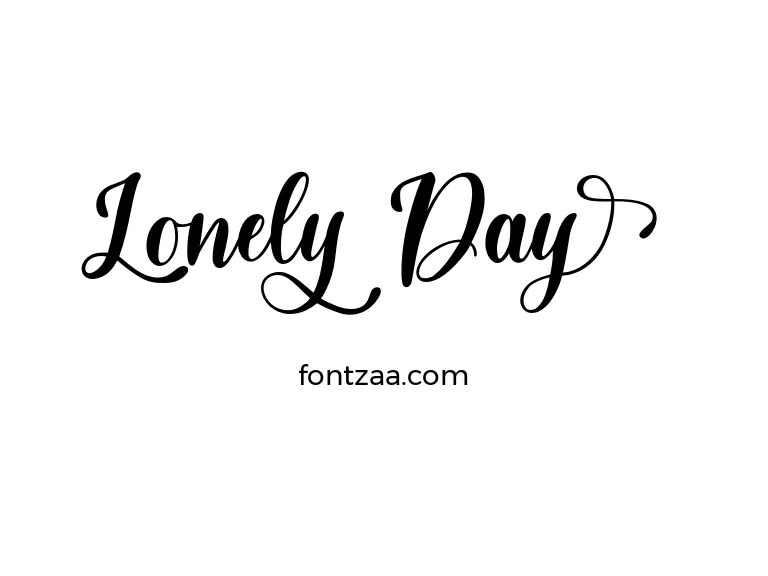
Lonelyday Font offers expressive lettering for designers looking for a elegant visual direction. Lonelyday Font stands out through its individual shapes and can become an important visual element in creative display work. Using generous space around the lettering can help the details of the typeface remain visible instead of competing with other elements. The typeface can change considerably depending on tracking, scale, alignment, background and surrounding imagery. Its letter shapes become especially noticeable at larger sizes, where spacing and proportions can be explored more clearly. Creative uses may range from invitations, wedding stationery, signatures, quotes and elegant branding, with different results depending on scale and layout. Keeping secondary typography simple often allows the distinctive qualities of the main font to remain more visible. A clean serif or sans serif companion can handle smaller text while this font remains focused on headlines and key messages. Source metadata currently associates the font with Jimtype Studio. License details are currently listed as Free for personal use. Users should verify the supplied documentation before using the font in products or paid projects. The most effective treatment will vary by project, so designers should compare several versions before finalizing the artwork.
Lonelyday Font stands out through its individual shapes and can become an important visual element in headlines, branding and promotional layouts. Its letter shapes become especially noticeable at larger sizes, where spacing and proportions can be explored more clearly. Different color combinations can make the same font feel subtle, energetic, premium or highly decorative. Using generous space around the lettering can help the details of the typeface remain visible instead of competing with other elements. The font can be considered for projects such as invitations, wedding stationery, signatures, quotes and elegant branding. Previewing the final layout on both large and small screens helps identify spacing and readability problems early. Print and digital layouts may require different sizing and spacing, so testing the actual output dimensions is recommended. Source metadata currently associates the font with Jimtype Studio. The listed license is Free for personal use, although users should still review the original font package before commercial use. A few quick layout variations can help determine where the font creates the strongest visual result.
The visual character of Lonelyday Font makes it an interesting choice for designers working on digital and print projects. Different color combinations can make the same font feel subtle, energetic, premium or highly decorative. The typeface can change considerably depending on tracking, scale, alignment, background and surrounding imagery. Its letter shapes become especially noticeable at larger sizes, where spacing and proportions can be explored more clearly. Creative uses may range from invitations, wedding stationery, signatures, quotes and elegant branding, with different results depending on scale and layout. Keeping secondary typography simple often allows the distinctive qualities of the main font to remain more visible. A clean serif or sans serif companion can handle smaller text while this font remains focused on headlines and key messages. The available source information lists Jimtype Studio as the designer or publisher. The available licensing label is Free for personal use, but redistribution and commercial permissions should always be confirmed from the original source. Experimenting directly in the intended design is usually the best way to judge whether the typeface suits the project.
Lonelyday Font Family
The Lonelyday Font Family can be explored in multiple compositions by adjusting typography size, spacing and surrounding design elements. Lonelyday Font stands out through its individual shapes and can become an important visual element in font-family exploration. Testing several arrangements before choosing the final version can reveal which characteristics of the typeface work best. The typeface can change considerably depending on tracking, scale, alignment, background and surrounding imagery. Different color combinations can make the same font feel subtle, energetic, premium or highly decorative. Possible applications include invitations, wedding stationery, signatures, quotes and elegant branding. Keeping secondary typography simple often allows the distinctive qualities of the main font to remain more visible. Print and digital layouts may require different sizing and spacing, so testing the actual output dimensions is recommended. Source metadata currently associates the font with Jimtype Studio. Current license information is shown as Free for personal use; checking the original documentation is recommended before client or commercial work. Testing the font with the actual project text can provide a much better impression than viewing isolated sample characters.
Design Tips for Lonelyday Font
With its distinctive letterforms, Lonelyday Font can introduce a elegant character into spacing, contrast, scale and layout decisions. Different color combinations can make the same font feel subtle, energetic, premium or highly decorative. Testing several arrangements before choosing the final version can reveal which characteristics of the typeface work best. Using generous space around the lettering can help the details of the typeface remain visible instead of competing with other elements. Designers may explore it across invitations, wedding stationery, signatures, quotes and elegant branding, depending on the tone and requirements of the project. Print and digital layouts may require different sizing and spacing, so testing the actual output dimensions is recommended. A clean serif or sans serif companion can handle smaller text while this font remains focused on headlines and key messages. According to the available font information, the typeface is associated with Jimtype Studio. Current license information is shown as Free for personal use; checking the original documentation is recommended before client or commercial work. Experimenting directly in the intended design is usually the best way to judge whether the typeface suits the project.
Branding Ideas With Lonelyday Font
With its distinctive letterforms, Lonelyday Font can introduce a elegant character into logos, wordmarks and visual identity systems. Different color combinations can make the same font feel subtle, energetic, premium or highly decorative. Using generous space around the lettering can help the details of the typeface remain visible instead of competing with other elements. Its letter shapes become especially noticeable at larger sizes, where spacing and proportions can be explored more clearly. Its display-focused appearance makes it worth testing in invitations, wedding stationery, signatures, quotes and elegant branding. Previewing the final layout on both large and small screens helps identify spacing and readability problems early. For layouts containing longer information, pairing it with a simpler supporting typeface can improve readability and hierarchy. Source metadata currently associates the font with Jimtype Studio. The listed license is Free for personal use, although users should still review the original font package before commercial use. Its final appearance will depend heavily on the surrounding colors, imagery, spacing and supporting typography.
Visual Features of Lonelyday Font
Lonelyday Font stands out through its individual shapes and can become an important visual element in the visual characteristics and design personality of the typeface. Different color combinations can make the same font feel subtle, energetic, premium or highly decorative. The typeface can change considerably depending on tracking, scale, alignment, background and surrounding imagery. The font can work as the primary visual element in a minimal layout or as part of a more detailed composition. Creative uses may range from invitations, wedding stationery, signatures, quotes and elegant branding, with different results depending on scale and layout. Designers should evaluate the typeface inside the real project because a standalone preview cannot show every possible visual combination. Previewing the final layout on both large and small screens helps identify spacing and readability problems early. The designer or publisher information available for this typeface is Jimtype Studio. License details are currently listed as Free for personal use. Users should verify the supplied documentation before using the font in products or paid projects. The most effective treatment will vary by project, so designers should compare several versions before finalizing the artwork.
Best Uses for Lonelyday Font
Lonelyday Font stands out through its individual shapes and can become an important visual element in practical ways designers can use the typeface. The typeface can change considerably depending on tracking, scale, alignment, background and surrounding imagery. The font can work as the primary visual element in a minimal layout or as part of a more detailed composition. Testing several arrangements before choosing the final version can reveal which characteristics of the typeface work best. Designers may explore it across invitations, wedding stationery, signatures, quotes and elegant branding, depending on the tone and requirements of the project. For layouts containing longer information, pairing it with a simpler supporting typeface can improve readability and hierarchy. Designers should evaluate the typeface inside the real project because a standalone preview cannot show every possible visual combination. According to the available font information, the typeface is associated with Jimtype Studio. The available licensing label is Free for personal use, but redistribution and commercial permissions should always be confirmed from the original source. The most effective treatment will vary by project, so designers should compare several versions before finalizing the artwork.
Projects That Suit Lonelyday Font
Lonelyday Font brings a elegant personality to typography and gives designers a flexible starting point for different creative applications for the font. The typeface can change considerably depending on tracking, scale, alignment, background and surrounding imagery. Different color combinations can make the same font feel subtle, energetic, premium or highly decorative. Its letter shapes become especially noticeable at larger sizes, where spacing and proportions can be explored more clearly. Possible applications include invitations, wedding stationery, signatures, quotes and elegant branding. Print and digital layouts may require different sizing and spacing, so testing the actual output dimensions is recommended. For layouts containing longer information, pairing it with a simpler supporting typeface can improve readability and hierarchy. The designer or publisher information available for this typeface is Jimtype Studio. License details are currently listed as Free for personal use. Users should verify the supplied documentation before using the font in products or paid projects. A few quick layout variations can help determine where the font creates the strongest visual result.
Using Lonelyday Font for Posters and Social Media
Lonelyday Font stands out through its individual shapes and can become an important visual element in posters, campaigns, thumbnails and promotional content. Different color combinations can make the same font feel subtle, energetic, premium or highly decorative. Testing several arrangements before choosing the final version can reveal which characteristics of the typeface work best. The typeface can change considerably depending on tracking, scale, alignment, background and surrounding imagery. The font can be considered for projects such as invitations, wedding stationery, signatures, quotes and elegant branding. Designers should evaluate the typeface inside the real project because a standalone preview cannot show every possible visual combination. For layouts containing longer information, pairing it with a simpler supporting typeface can improve readability and hierarchy. The available source information lists Jimtype Studio as the designer or publisher. Current license information is shown as Free for personal use; checking the original documentation is recommended before client or commercial work. A few quick layout variations can help determine where the font creates the strongest visual result.